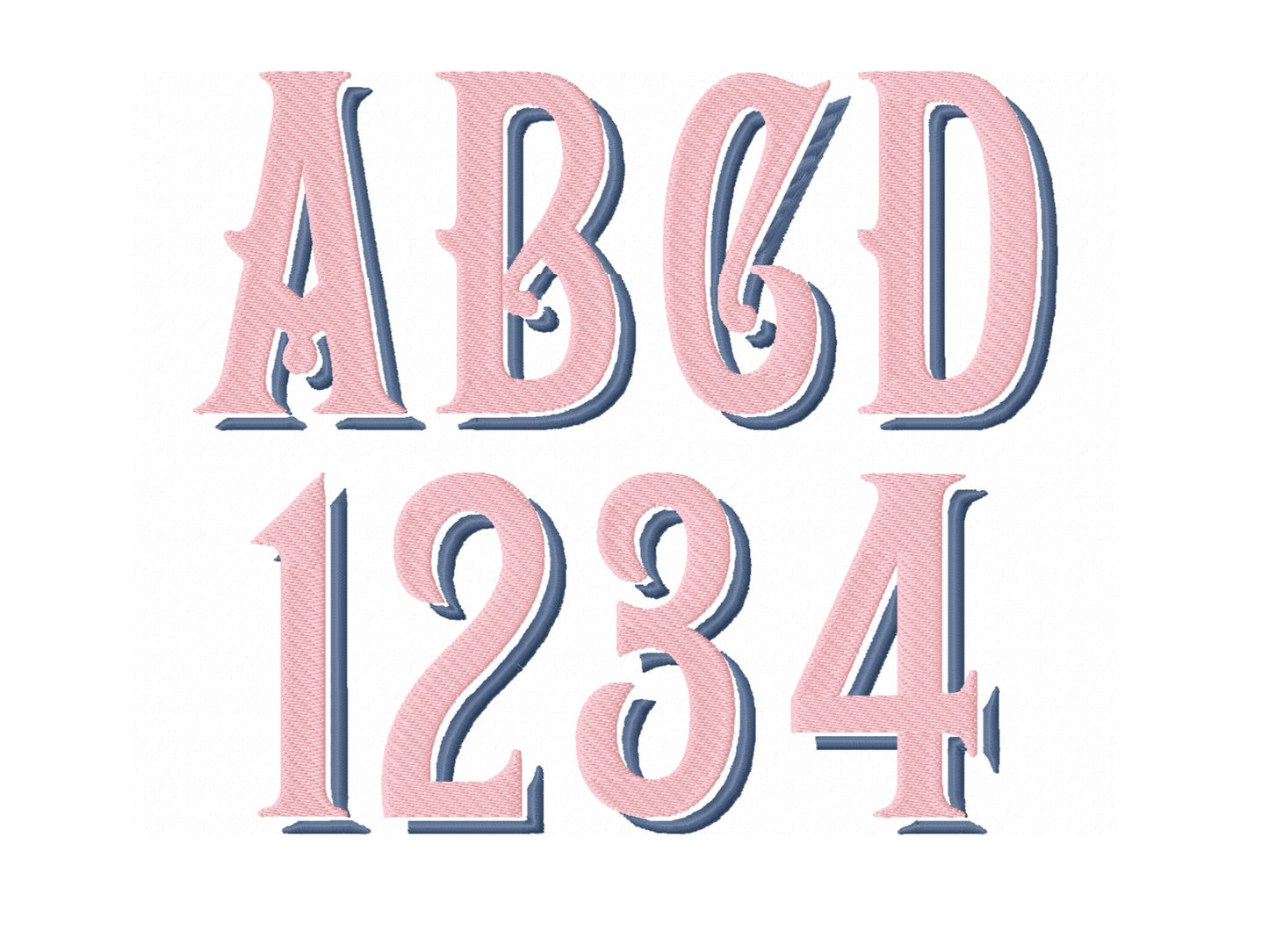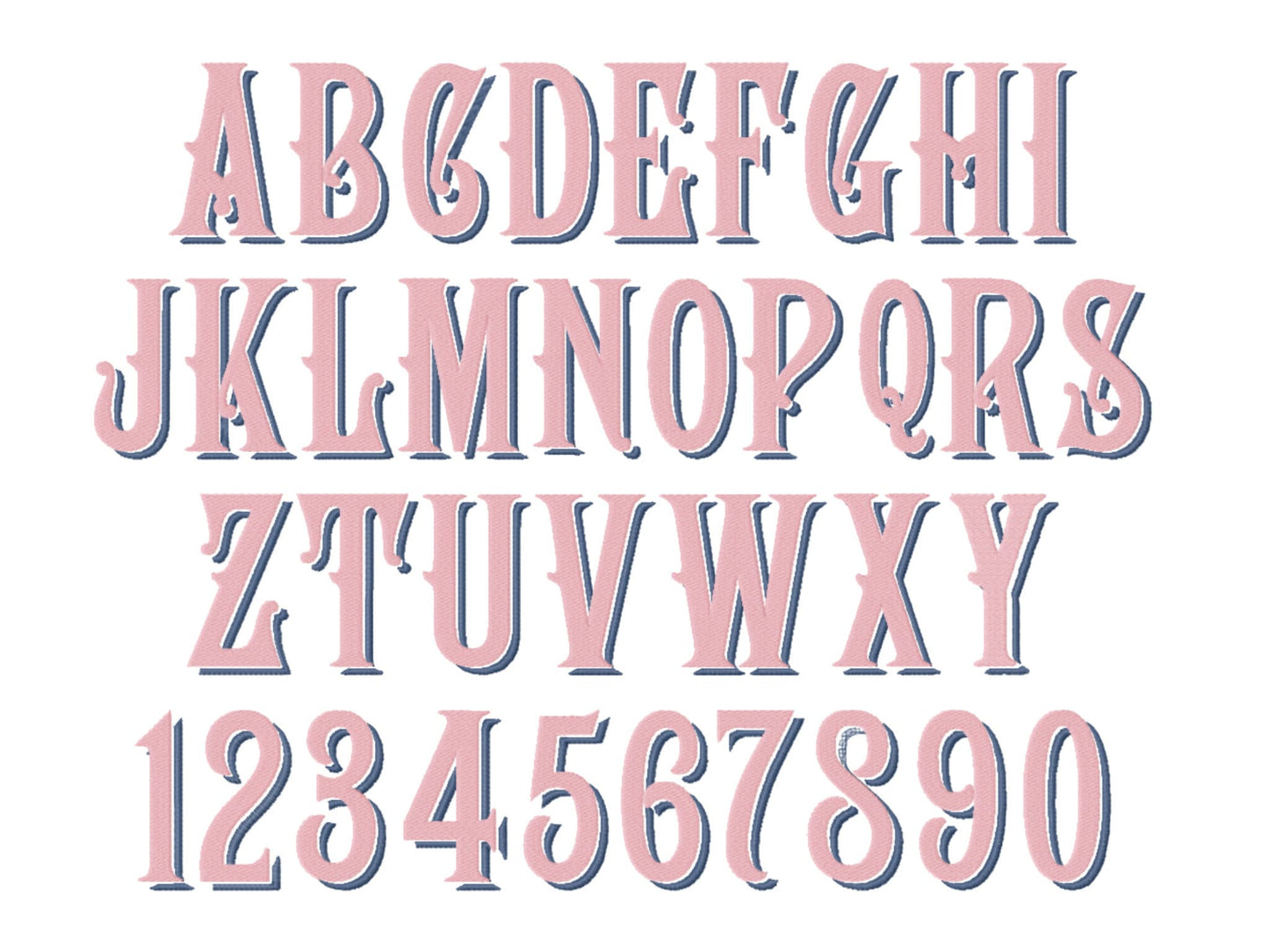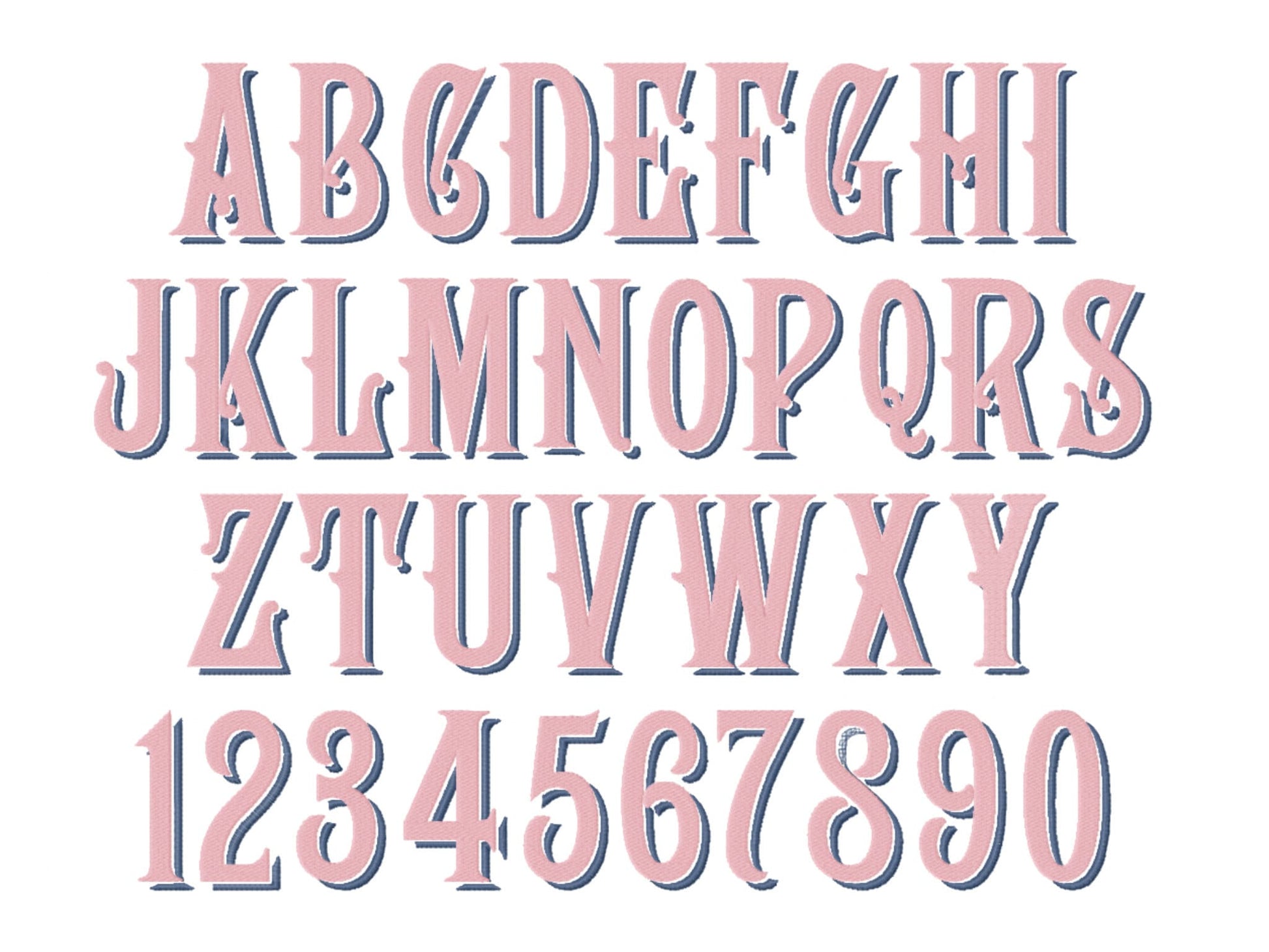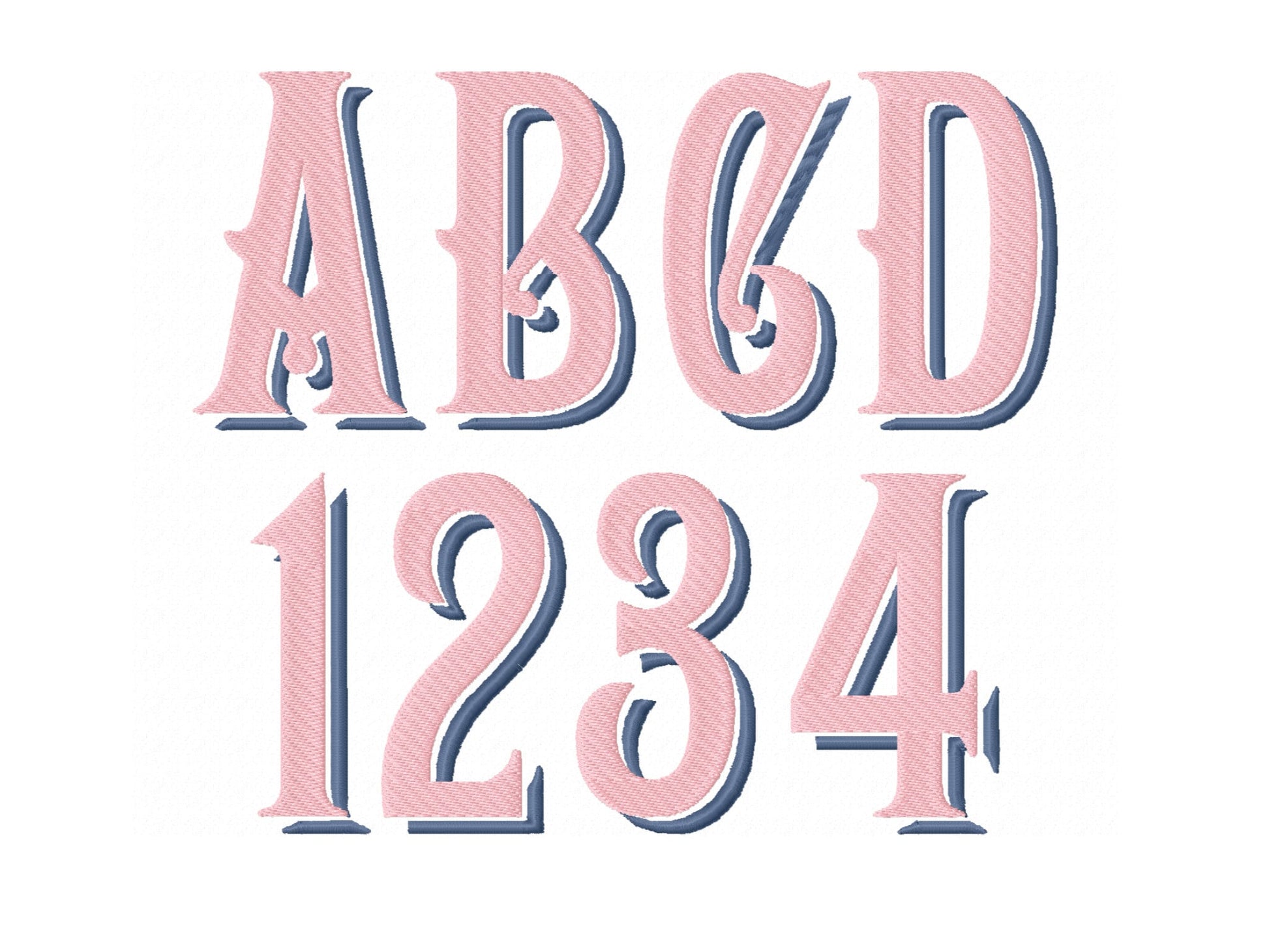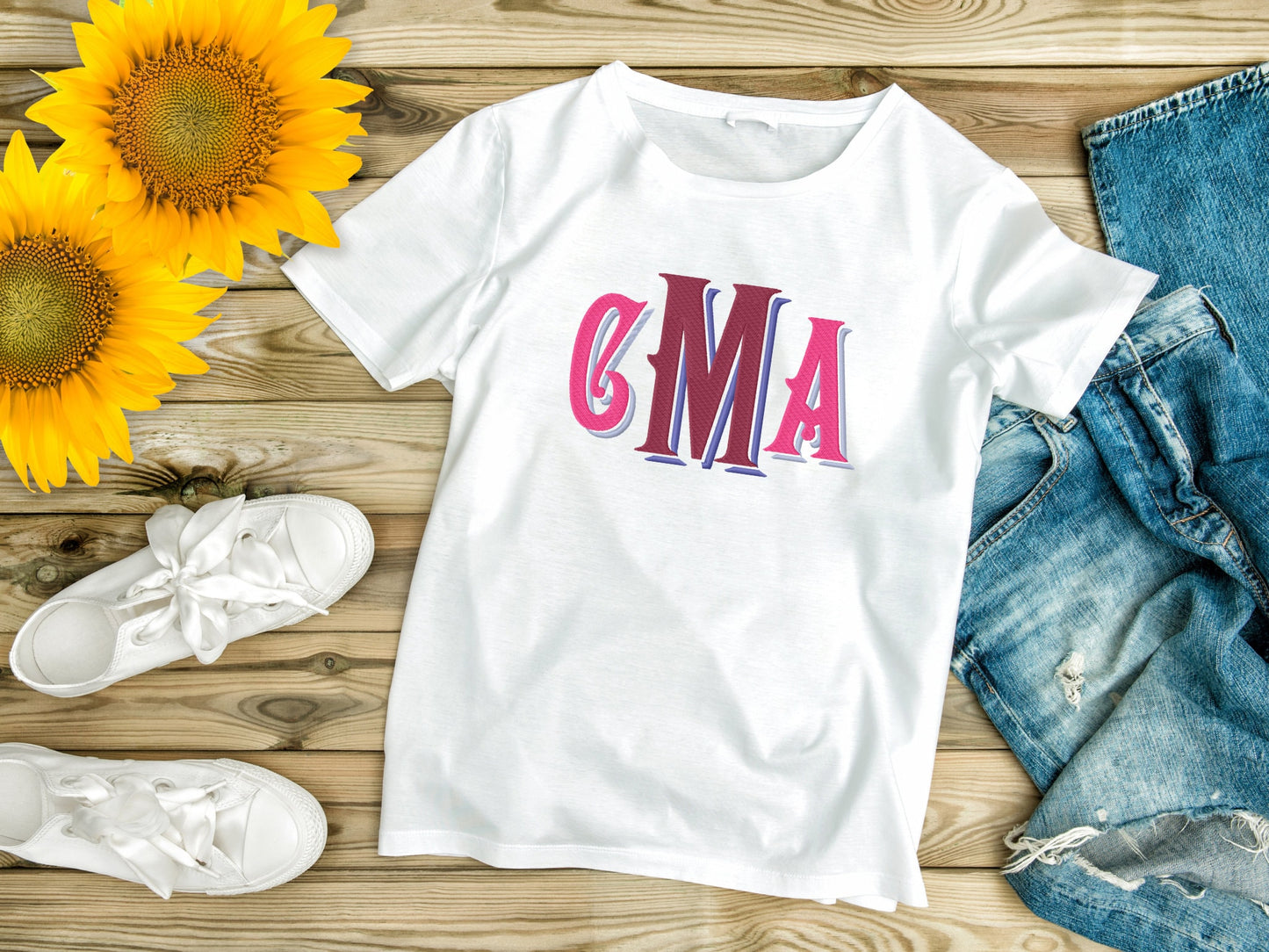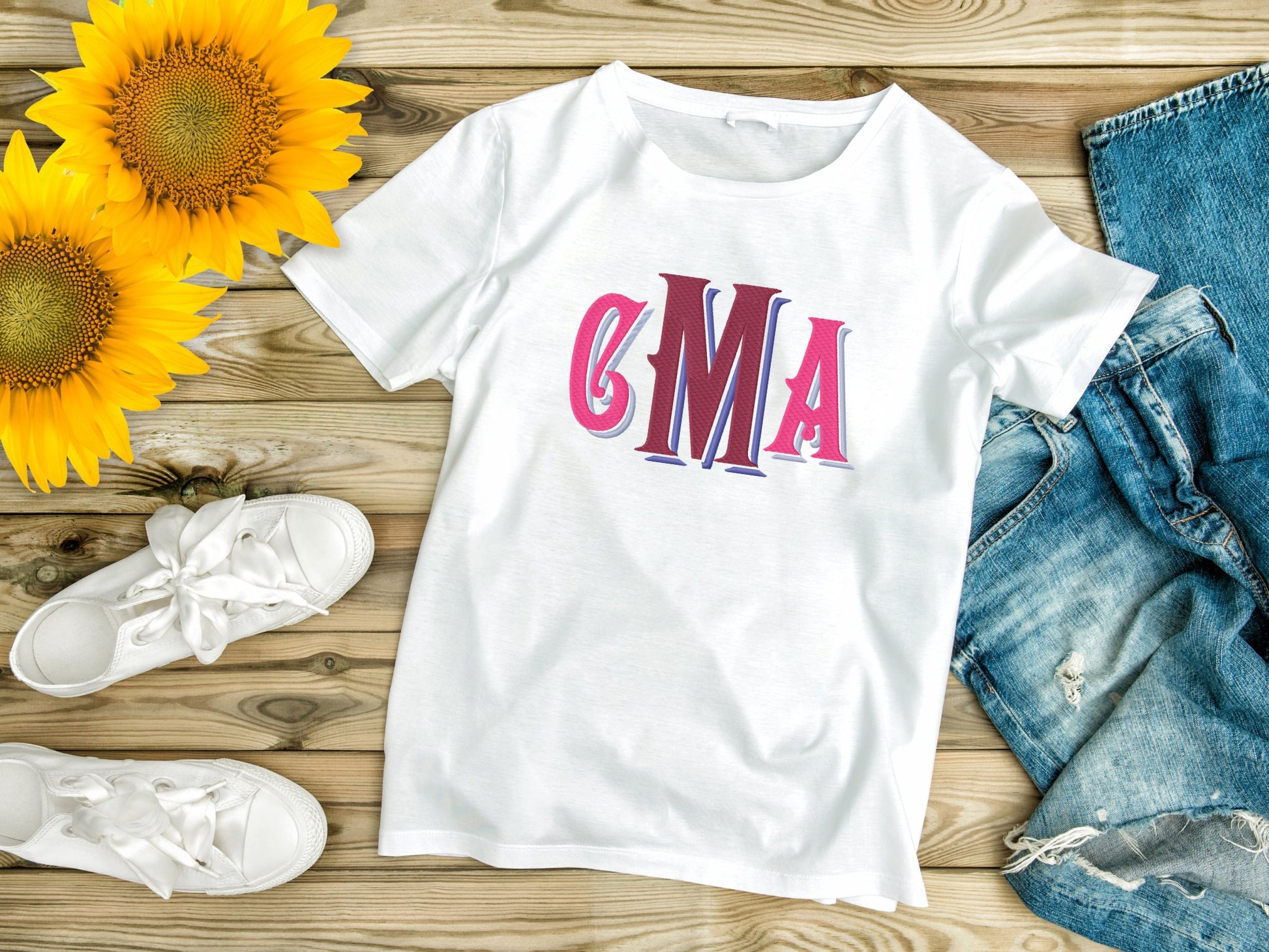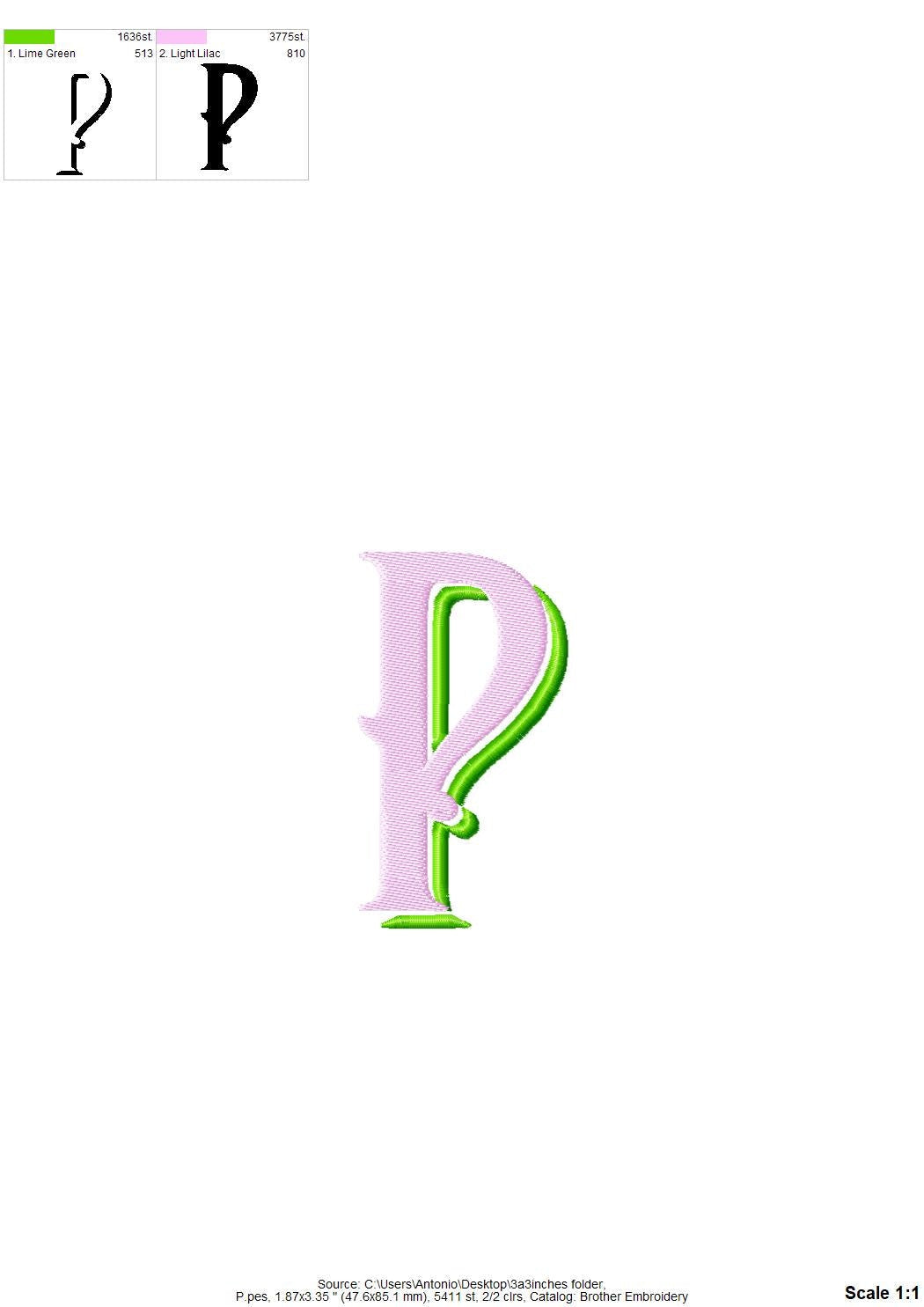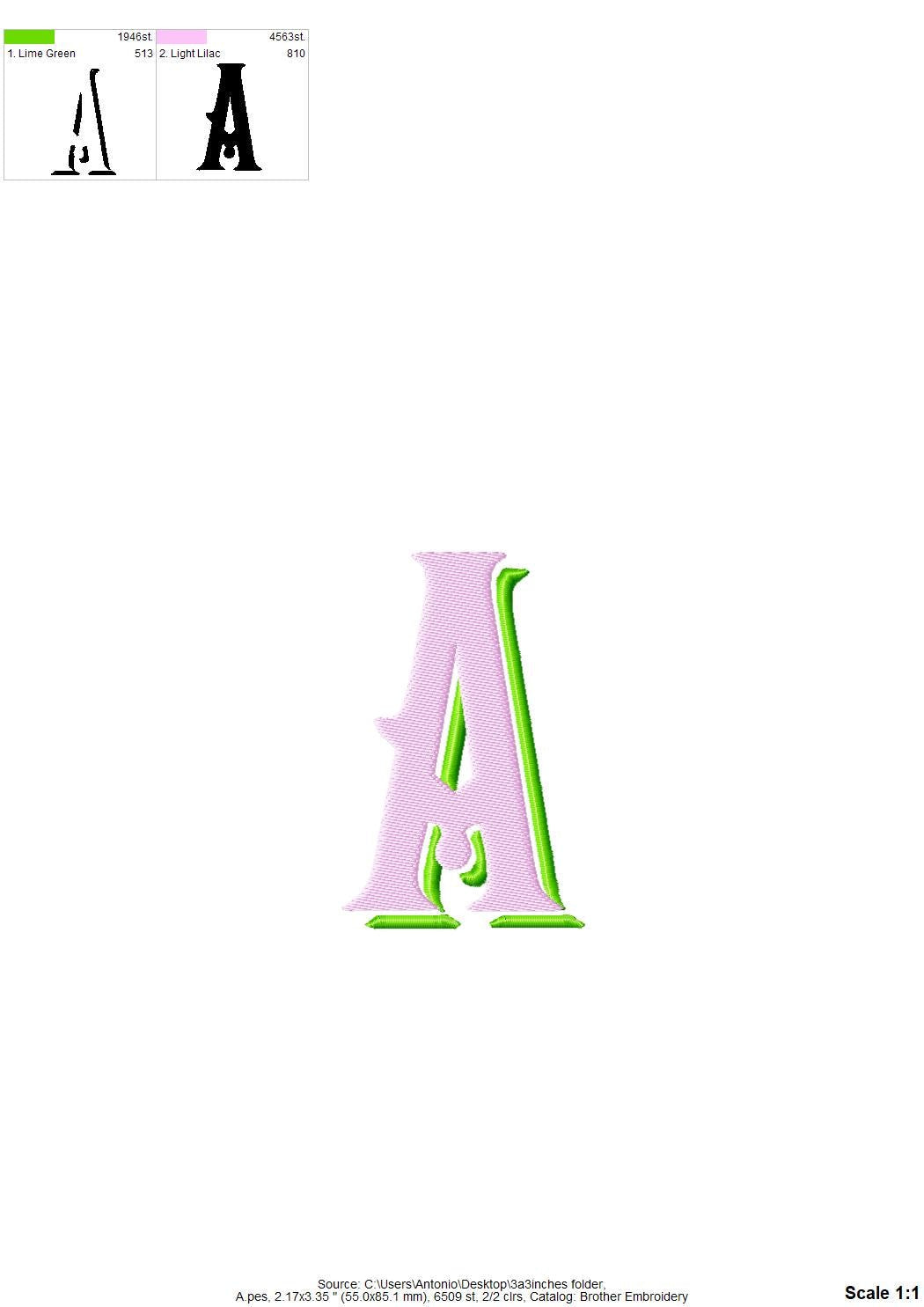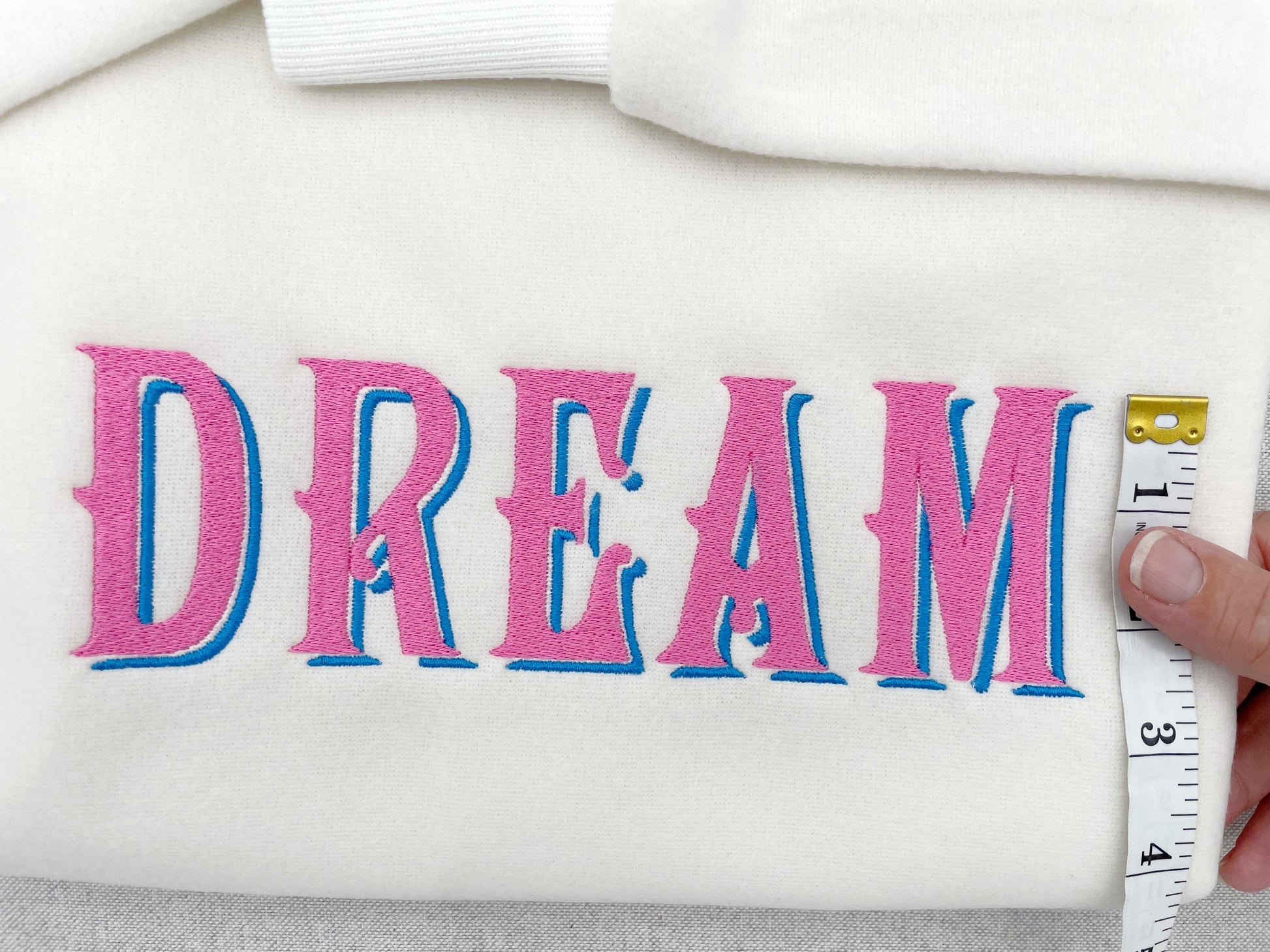
Classic Drop Shadow Font
Or click to open the linkA classic monogram font with a two-color drop shadow, in fill stitch. Timeless for names, initials, towels and gifts.
The letters come in seven sizes: 1.8, 2.2, 2.5, 3, 3.3, 3.7 and 4.3 inches. Fill stitch letters with a drop shadow in a second color. Includes uppercase letters A to Z and numbers 0 to 9.
- Classic 2-color drop shadow font
- Uppercase A to Z, numbers 0 to 9
- 7 sizes, 1.8 to 4.3 in